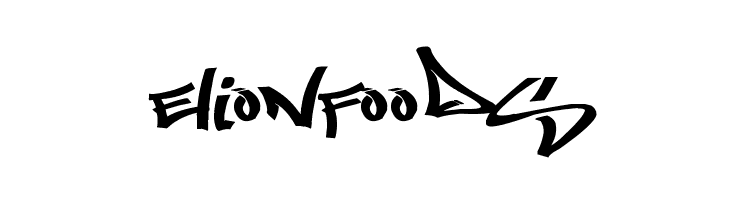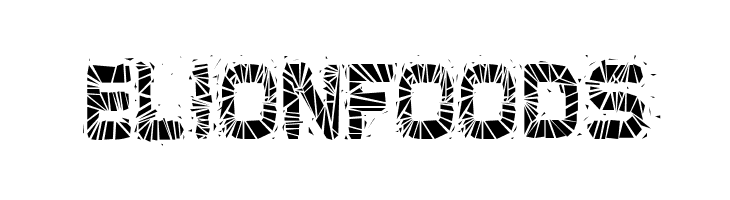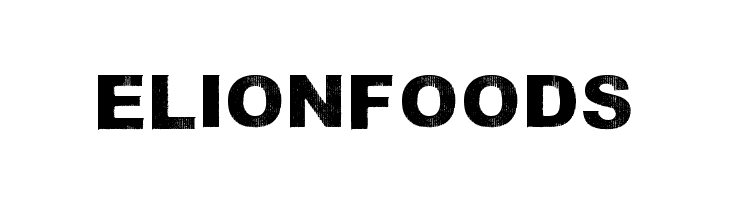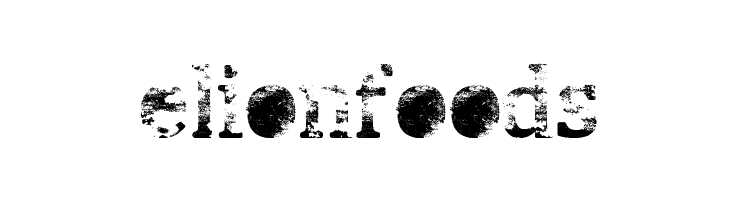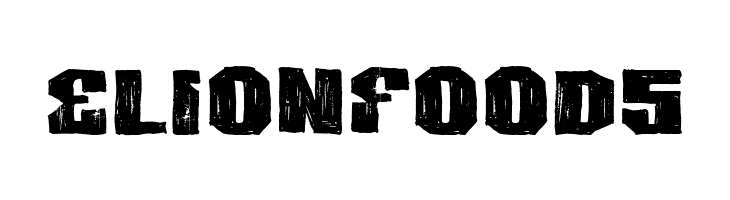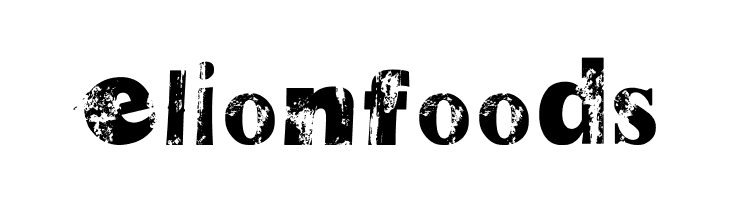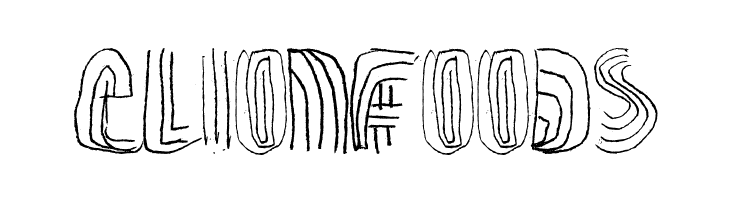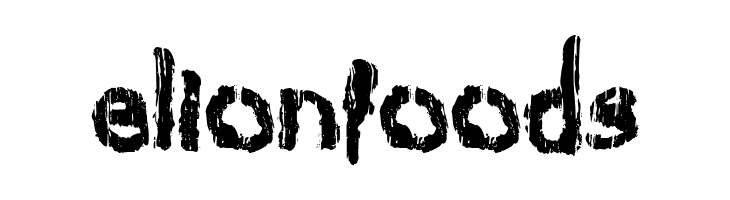
A bold, graffiti-inspired font with dynamic, angular strokes.
A bold, shattered glass effect font with dynamic, angular lines.
A bold, distressed font with a grunge texture, perfect for impactful designs.
A distressed, grunge-style font with a textured, urban appearance.
A bold, distressed font with a grunge, urban aesthetic.
A bold, hand-drawn font with dynamic, parallel lines for an energetic look.
Graphic-heavy, rock-inspired decorative font with illustrated characters.
A distressed, grunge-style font with a rough, textured appearance.